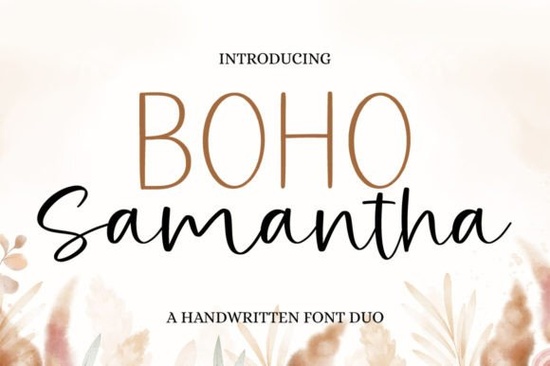
If you enjoy adding a playful, handcrafted feel to your projects, the Boho Samantha font can bring that look without the work of drawing every letter yourself. This duo of fonts works together to give you a cheerful, boho-inspired style that works well for everything from greeting cards to product labels.
Unlike some script fonts that only work at large sizes or feel too formal, Boho Samantha keeps a light, approachable character. The two fonts complement each other perfectly one might be used for headings while the other handles subtext, or you can layer them for a mixed typography look. Because the set is PUA encoded, you get easy access to all the extra glyphs and swashes. That means you can add flourishes, alternates, and decorative tails without needing special software or workarounds.
What makes this font set different from a single script font?
Many script fonts come as a single weight or style. When you only have one typeface, you often have to adjust size, spacing, or color to create contrast in your design. With Boho Samantha, you already have two fonts that were built to work together. This saves time when you're designing a poster, social media graphic, or product mockup because the pair already shares a cohesive feel.
The two fonts can also be used independently. The lighter, more whimsical font works well on its own for short quotes or children's party invitations. The bolder counterpart gives you better legibility for longer lines of text. For print-on-demand sellers, this means you can create matching designs that look curated without needing to purchase multiple font families.
How to use Boho Samantha in your craft projects
Whether you design for digital products or physical items, here are a few ways to put this font set to work:
- Card making – Use the script version for a handwritten sentiment and the bolder font for the recipient's name or a short message on the envelope.
- Wall art prints – Layer the two fonts at different sizes to create a quote design that feels artistic but isn't overwhelming.
- Product labels – The polished-yet-casual style fits small business branding, especially for handmade goods like candles, soaps, or baked treats.
- Social media templates – Combine the fonts with simple graphics to maintain a consistent look across your Instagram stories or Pinterest pins.
- Planner stickers – The swashes and alternates let you customize words or phrases so they fit neatly into small spaces.
For designers who work with print-on-demand, this font set is a natural fit for apparel and accessory designs. The cheerful lines appeal to the boho and rustic aesthetic that still performs well on marketplaces. If you're exploring other fonts in this style, you'll find that Boho Samantha pairs particularly well with simple sans-serif fonts for a modern contrast.
Which projects benefit most from a PUA encoded font?
If you have used script fonts that lacked PUA support, you know the annoyance of missing out on the decorative elements that make the font special. With Boho Samantha, every swash and alternate is right there for you to use. That makes it a practical choice for anyone who wants to add charm without spending extra time fiddling with software.
What other fonts work well with this style?
If you like the organic, hand-drawn feel of Boho Samantha, you might also enjoy similar options that lean into a positive or rustic vibe. For example, a positive mindset script font can give you a different mood while keeping the handcrafted appearance. For summer-themed projects, a bright summer duo font offers a similar two-for-one structure. And if you're after a more refined handwritten look, the Brigetha script font provides an elegant alternative. For farmhouse-style designs, a farmhouse handwritten font pairs nicely with the casual Boho Samantha aesthetic. These options give you variety while keeping your design toolkit consistent.
Practical tip before you start designing
When you first install the font, open your design software and take five minutes to browse through the available glyphs. Make a note of which swashes you like for capital letters and which alternates work for frequent lowercase letters like "e", "a", or "y". This quick step helps you avoid digging through panels while you're in the middle of a project. For print-on-demand sellers, consider creating a small style guide with your favorite combinations. That way you can maintain a consistent brand look across your product line without reinventing the wheel each time.